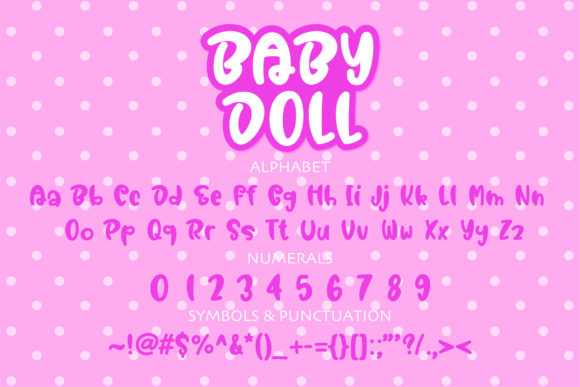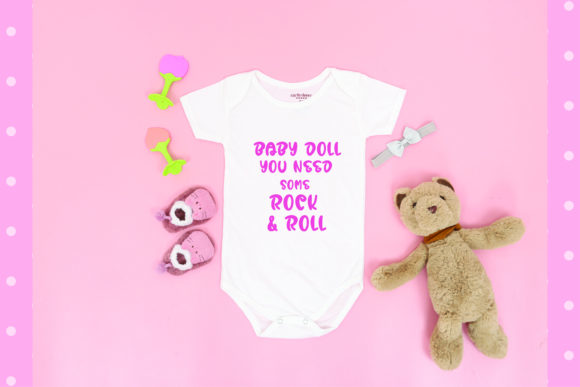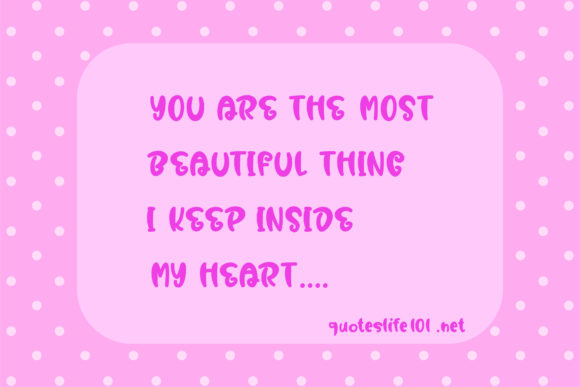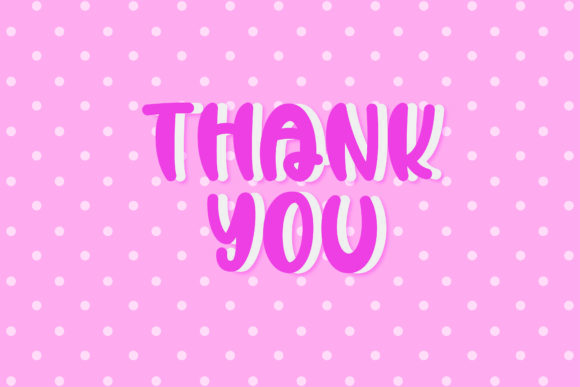
Adding a Touch of Whimsy with the Baby Doll Font
Have you ever been brainstorming ideas for a project and suddenly, a spark of creativity hits you? You envision a design that’s playful, charming, and full of life. That’s exactly the kind of feeling the Baby Doll Font evokes. This lovely display font is perfect for adding a touch of whimsy to your designs.
The Baby Doll Font is a versatile font that can be used for a wide range of projects, from wedding invitations and thank you cards to quotes and greeting cards. Its bouncy, charming style makes it a valuable asset for designers looking to add a customized touch to their work. Whether you’re creating a logo, business card, or any other design, the Baby Doll Font is sure to bring a smile to your face.
Baby Doll Font Key Features
- Font Style: Script, Handwritten, Casual
- Unique Characteristics: Whimsical, playful, and elegant, making it perfect for creative projects, invitations, and decorative typography
Baby Doll Font Review
Overall, I found the Baby Doll font to be a unique and charming addition to any design project. ✨ It has a playful, whimsical feel that’s perfect for children’s books, nursery decor, or any other project that calls for a touch of innocence and wonder. The font’s curved lines and rounded edges give it a soft, feminine quality that’s hard to resist.
Some of the strengths of the Baby Doll font include:
- Its versatility – it can be used for a wide range of applications, from titles to body text.
- Its legibility – even at smaller sizes, the font remains clear and easy to read.
- Its emotional resonance – it’s a font that can evoke feelings of nostalgia and warmth.
However, there are some limitations to the Baby Doll font that should be noted:
- Its lack of bold weights – if you need to emphasize certain text, you may find that the font’s limited weight options hold you back.
- Its limited language support – if you need to use the font for text in non-Latin scripts, you may encounter some issues.
- Its potential for overuse – because the font is so charming, it’s easy to get carried away and overuse it in your design.
Overall, I would recommend the Baby Doll font to designers who are looking for a unique and charming addition to their projects. Just be sure to use it judiciously and balance it with other fonts to avoid overuse.
For the most dramatic effect, use Baby Doll Font in all caps. To create a vintage feel, pair the font with distressed textures and backgrounds. Experiment with different font sizes and colors to create visual interest.
Baby Doll Font is perfect for creating whimsical and playful designs, such as: children’s party invitations, nursery decor, and baby shower invitations. It’s also great for adding a touch of nostalgia to vintage-inspired designs.